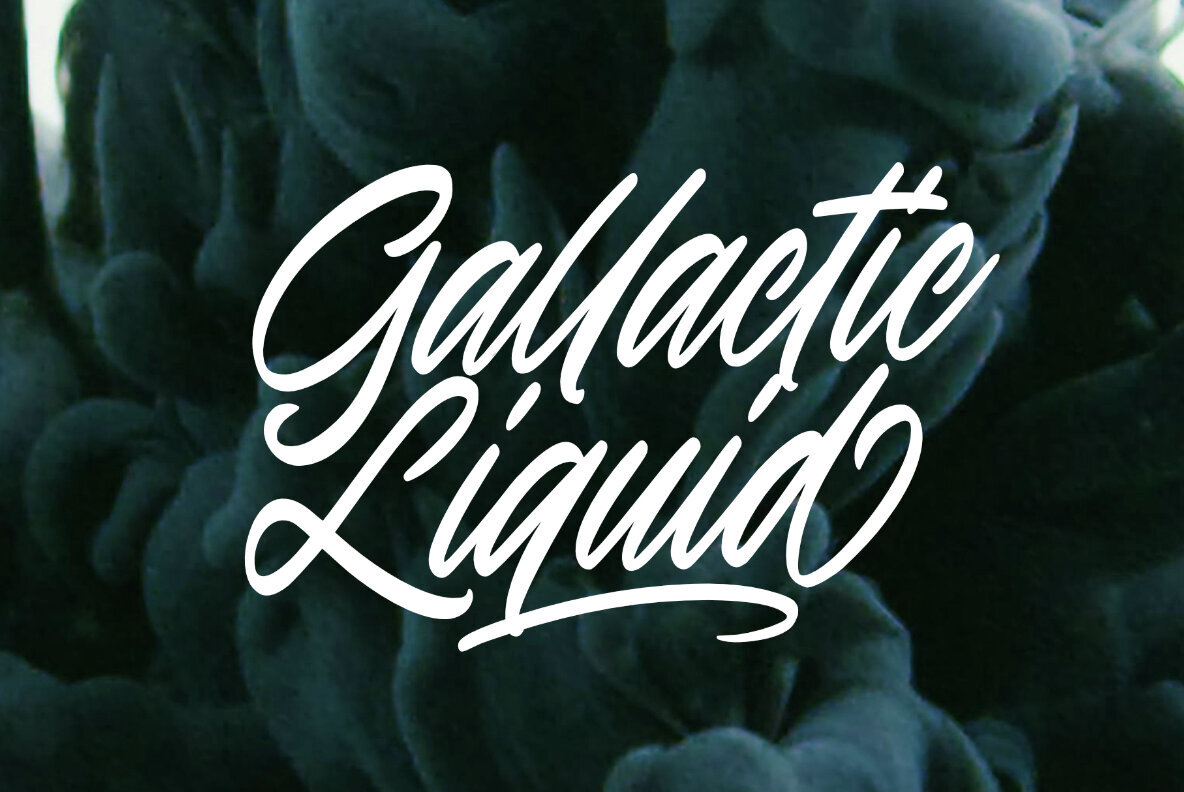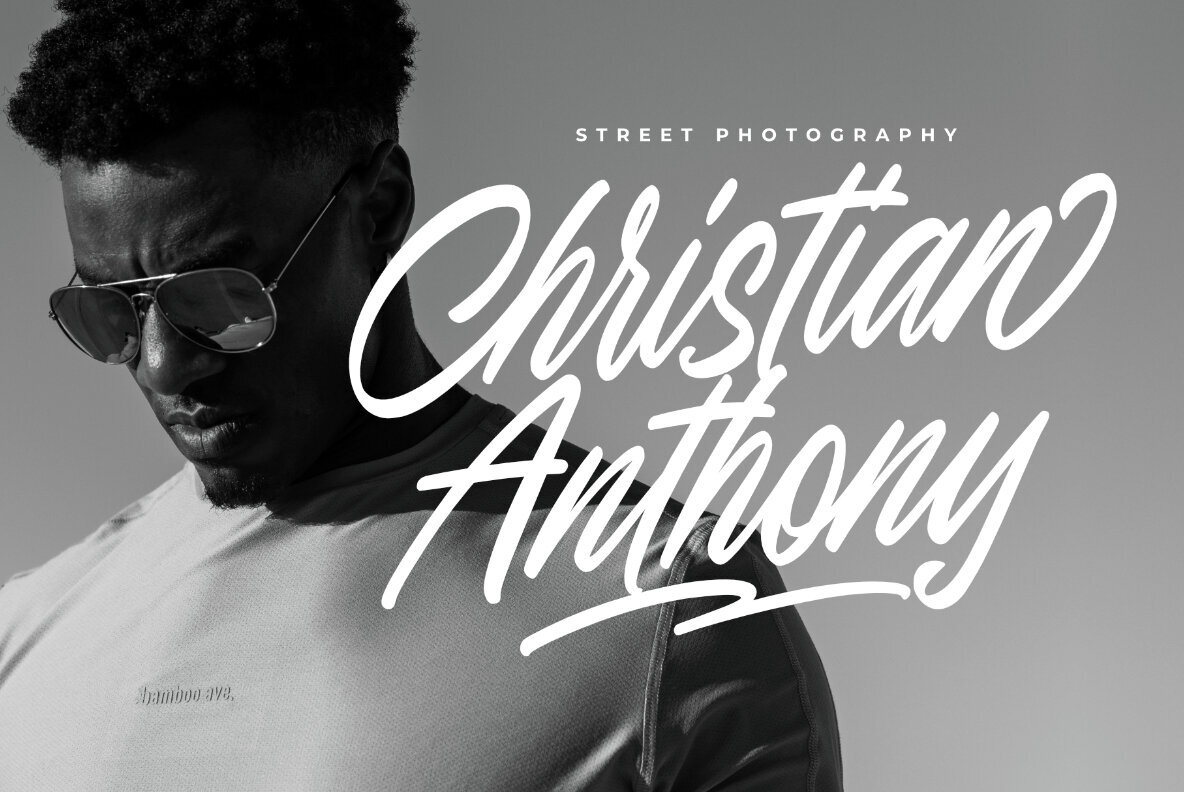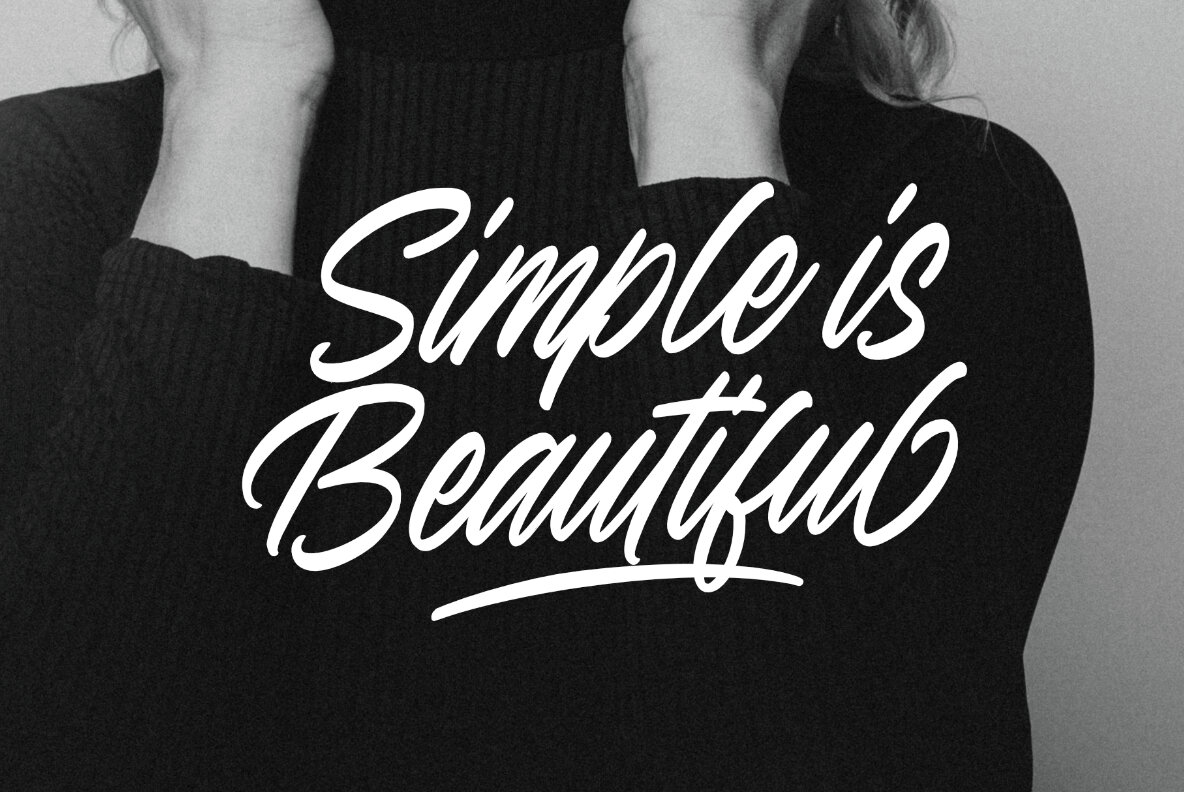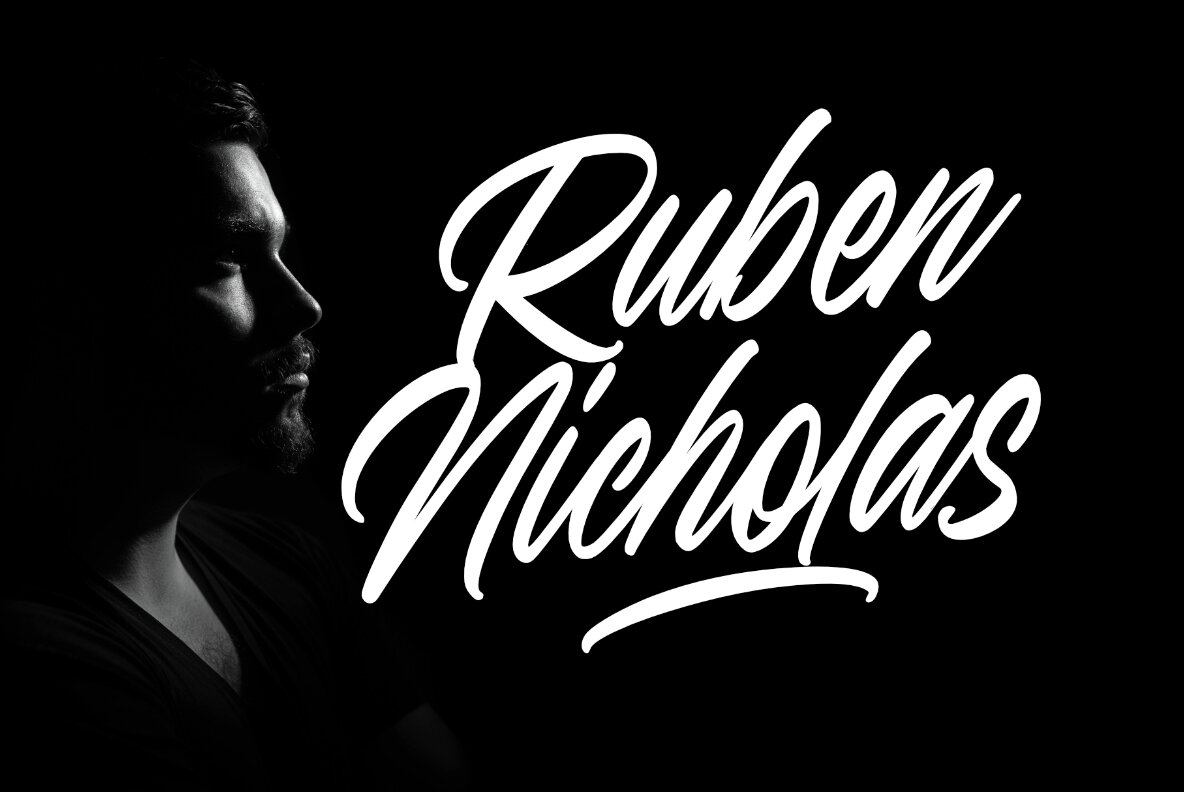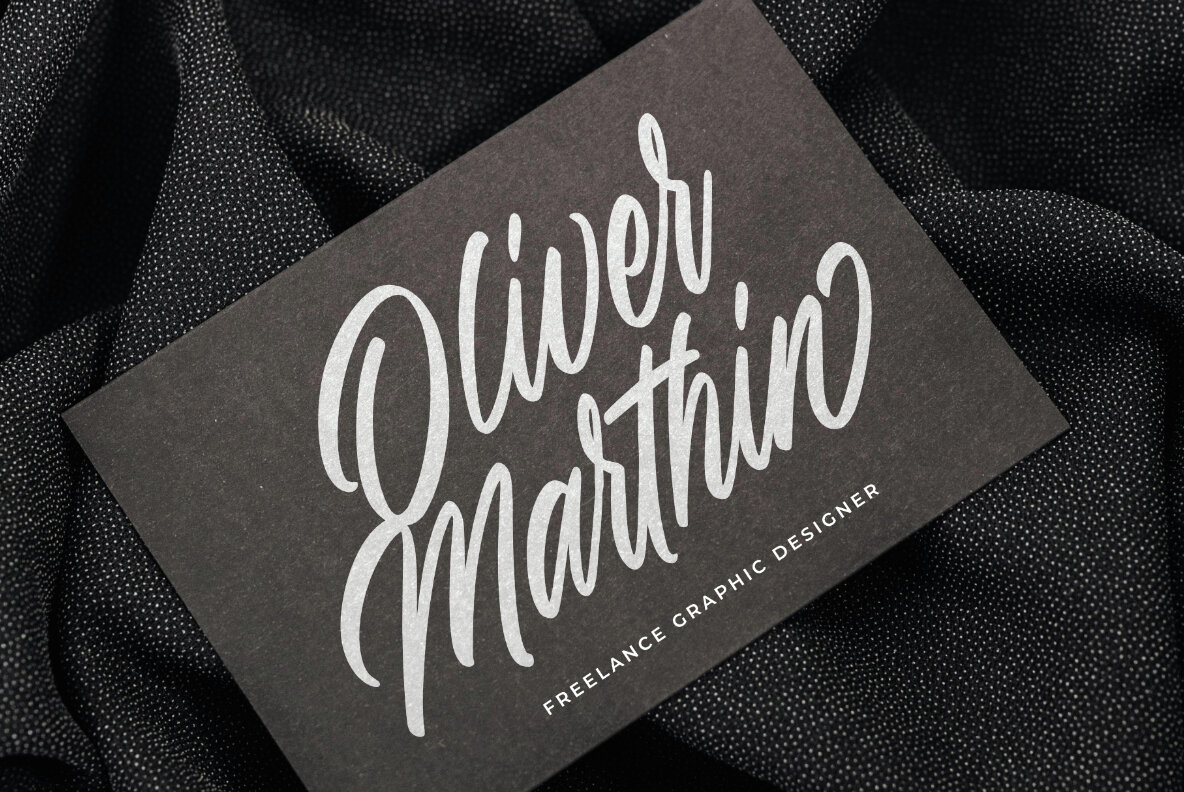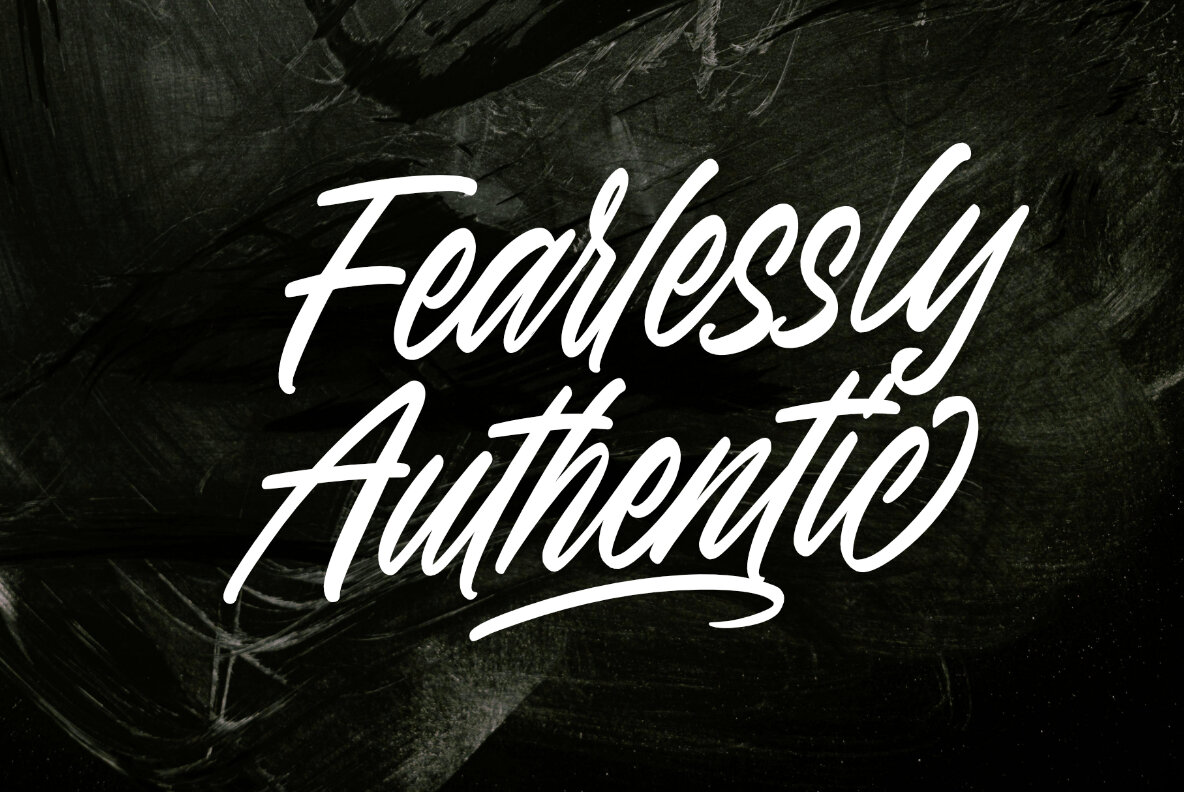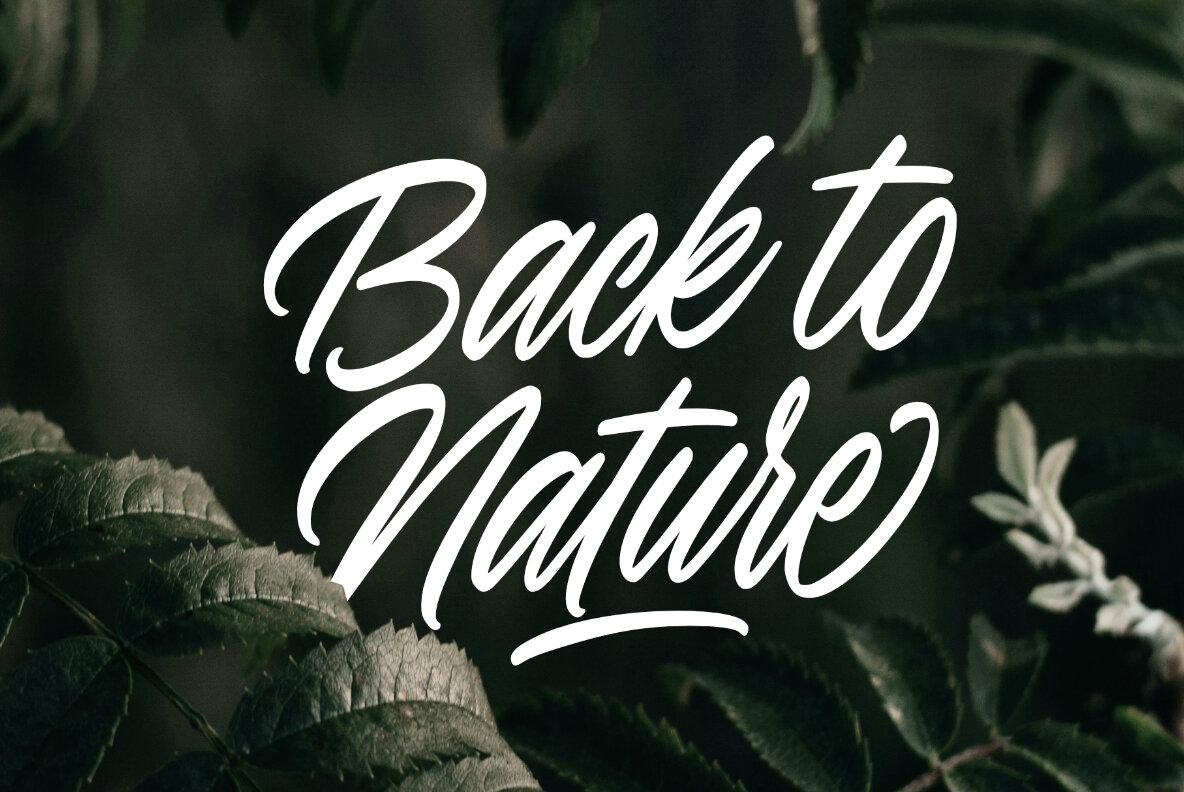
Madeleine Stories Font
Madeleine Stories Regular
Madeleine Stories is a beautifully crafted handwriting script typeface that embodies elegance, warmth, and versatility. With its flowing, hand-lettered strokes and refined details, this font feels both personal and polished, making it perfect for a wide range of creative projects. Whether you're working on wedding invitations, branding, social media content, or heartfelt quotes, Madeleine Stories adapts seamlessly to add a sophisticated, handmade touch.